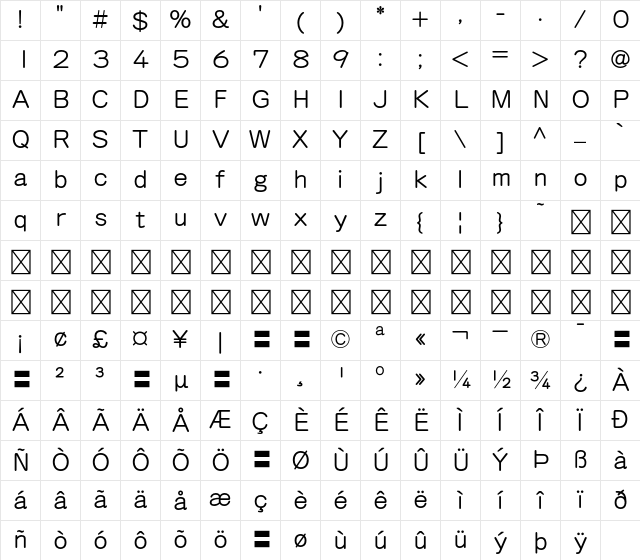
G-OTF Hitujyun ICA Std M34
Style: M34
Complete G-OTF Hitujyun ICA Std M34 glyph index. Displaying only characters natively supported by G-OTF Hitujyun ICA Std M34 font.
Design Context for G-OTF Hitujyun ICA Std
G-OTF Hitujyun ICA Std is a composed and adaptable typeface that performs quietly and consistently across a wide range of design contexts.